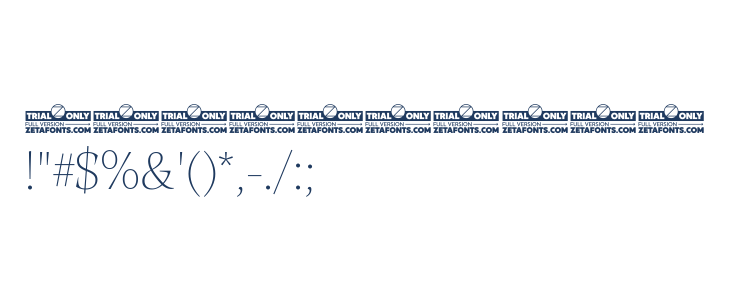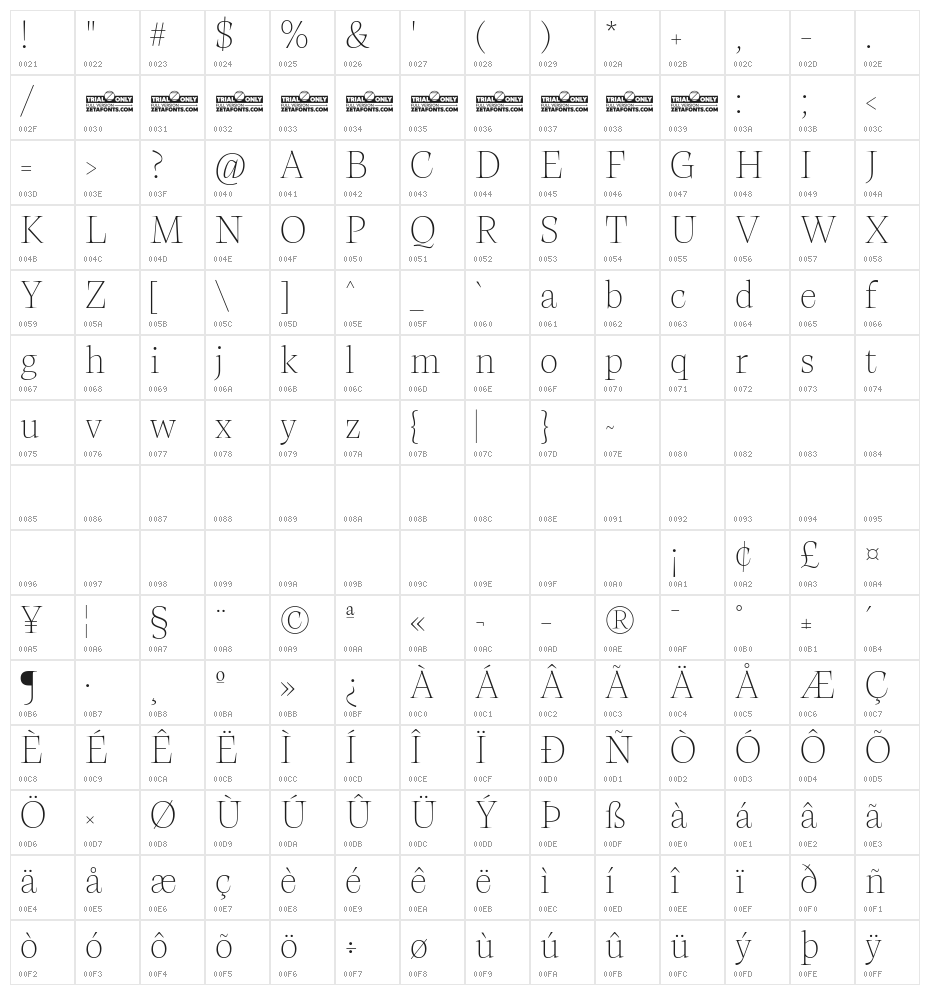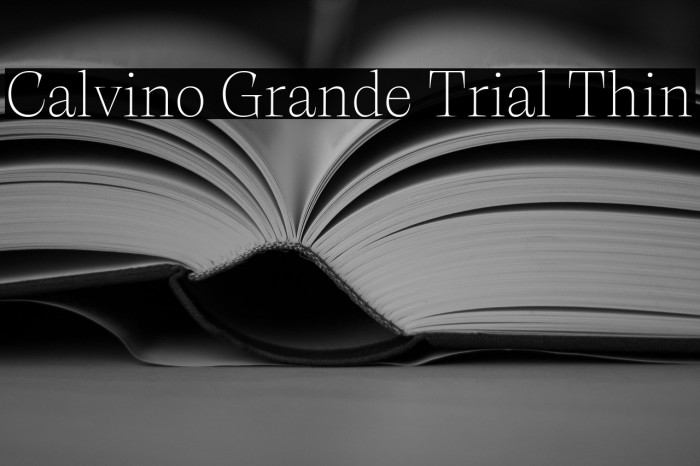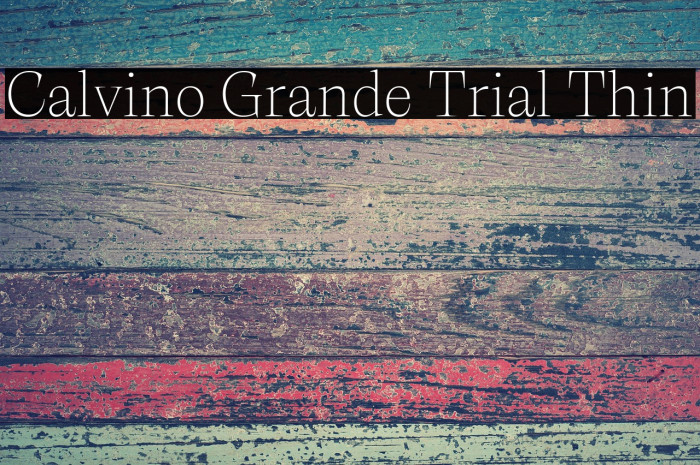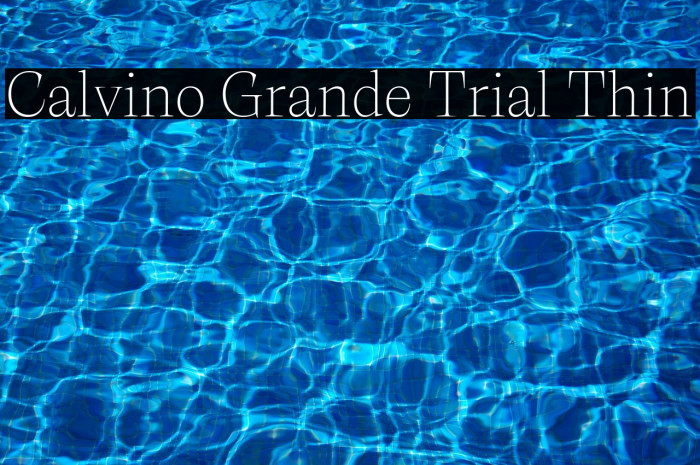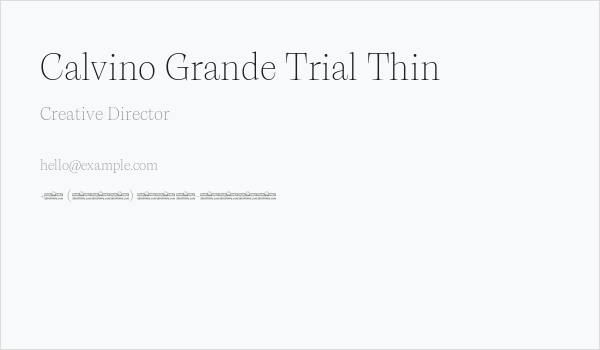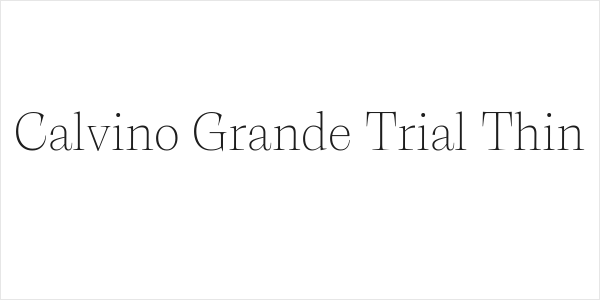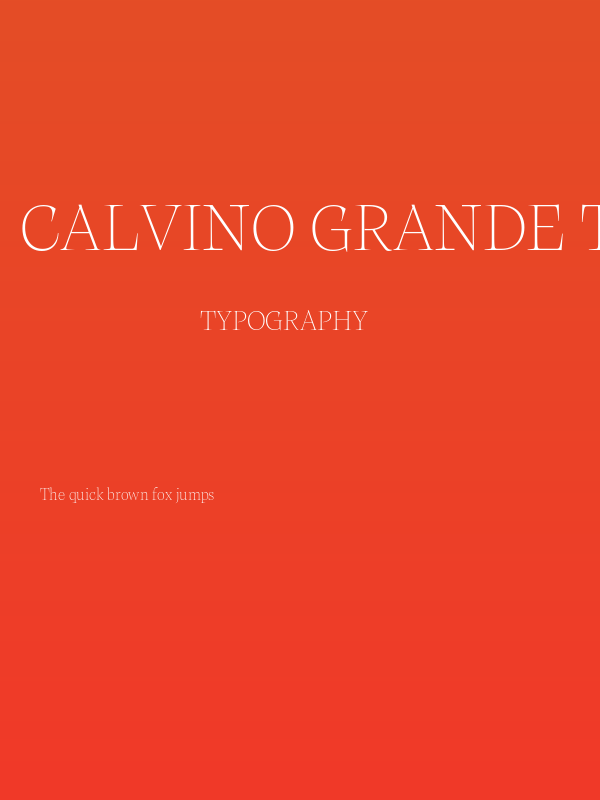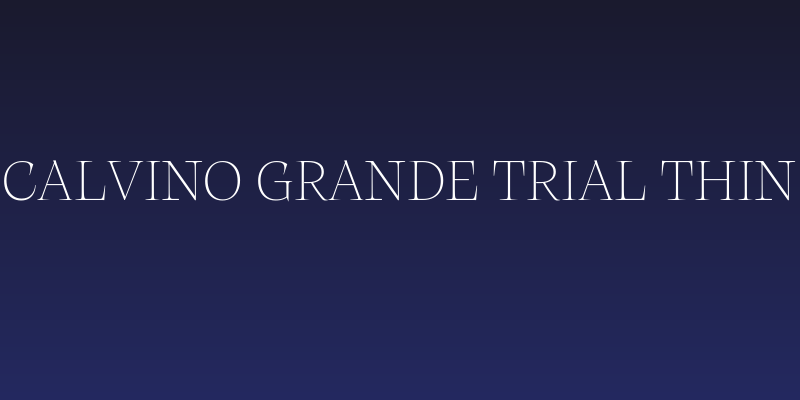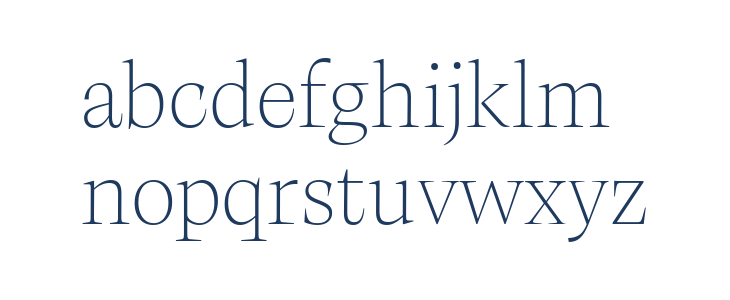
Calvino Grande Trial Thin Font
Calvino Grande Trial Thin Description
This font features a refined and elegant serif style, characterized by thin strokes and high contrast between thick and thin lines. The uppercase letters are tall and stately, while the lowercase letters maintain a balanced and harmonious appearance. The overall design exudes a sense of sophistication and classic beauty, making it suitable for formal and high-end applications. The numerals and special characters are crafted with the same attention to detail, ensuring consistency throughout the typeface.
| Use Case | Headlines, Logos, Editorial design |
| Proposed Projects | Ideal for luxury branding, editorial design, wedding invitations, and high-end product packaging. |